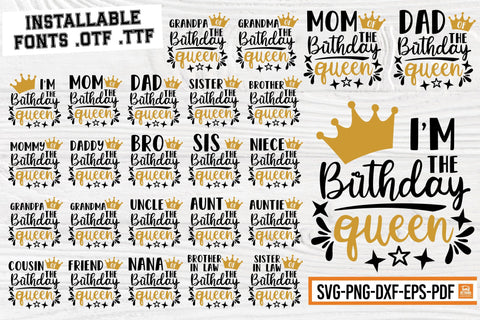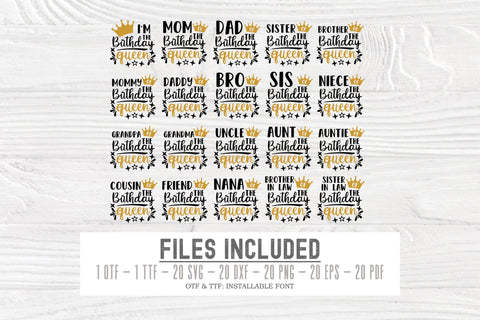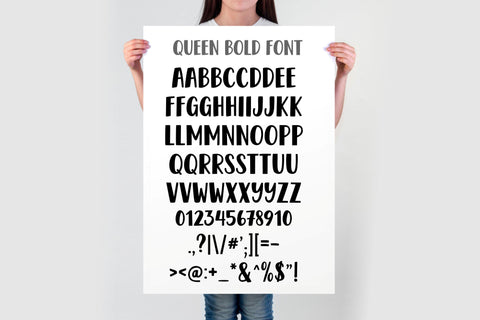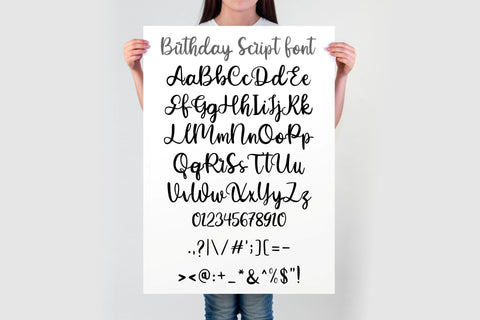
Birthday Queen SVG Bundle, Includes Bold & Calligraphy Fonts
Celebrate every special birthday with our 'Birthday Queen' design bundle! 🎉👑
The bundle features bold and script fonts to give your creations a stylish and elegant look, whether you're working on t-shirts, home decor, gifts, or party accessories. All files are well-organized and easy to use, allowing you to create impressive designs in no time.
- Installable fonts: bold for names and script for the text.